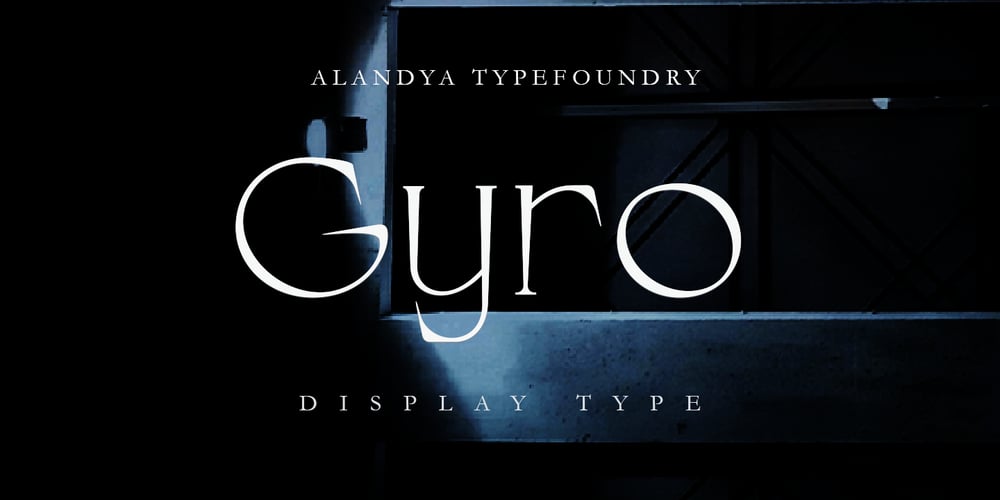
Gyro Font Family was designed by Cut Nurfajarlia and published by Alandya TypeFoundry. Gyro contains 2 styles and family package options. Introducing ” Gyro Serif Display “,Gyro Serif Display is designed with a conical stem to create a unique style and easy to read.Which are all equipped with plenty of language support and open type features.Gyro Serif Display was made to function especially well at large sizes.Gyro Serif Display is a very versatile font, covering a wide variety of projects, from bold magazine imagery, to branding, poster design, and more.